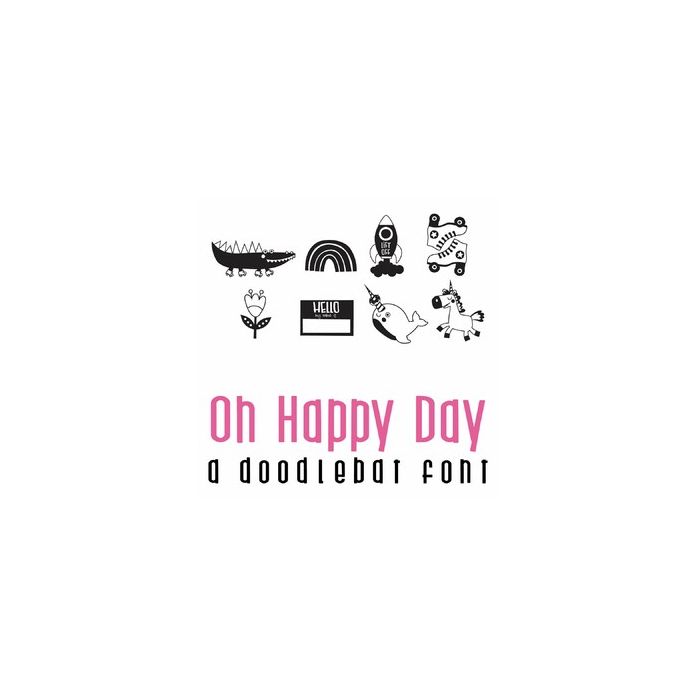
This doodlebat font features 26 of the happiest fun images that are sure to make you smile! Perfect for cards, crafts, gifts, planner stickers, scrap book pages, decor, holidays, St. Patrick's Day and more!